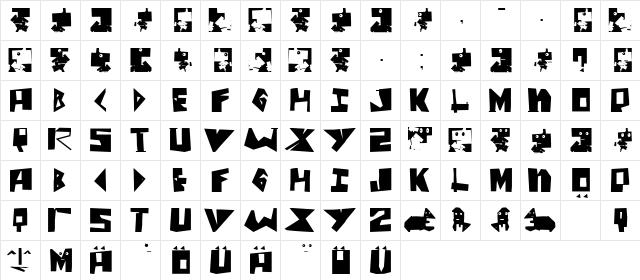
ScissorThree Regular Font Preview
ScissorThree Regular
Design Context for ScissorThree Typeface
ScissorThree is a composed and adaptable typeface that performs quietly and consistently across a wide range of design contexts.